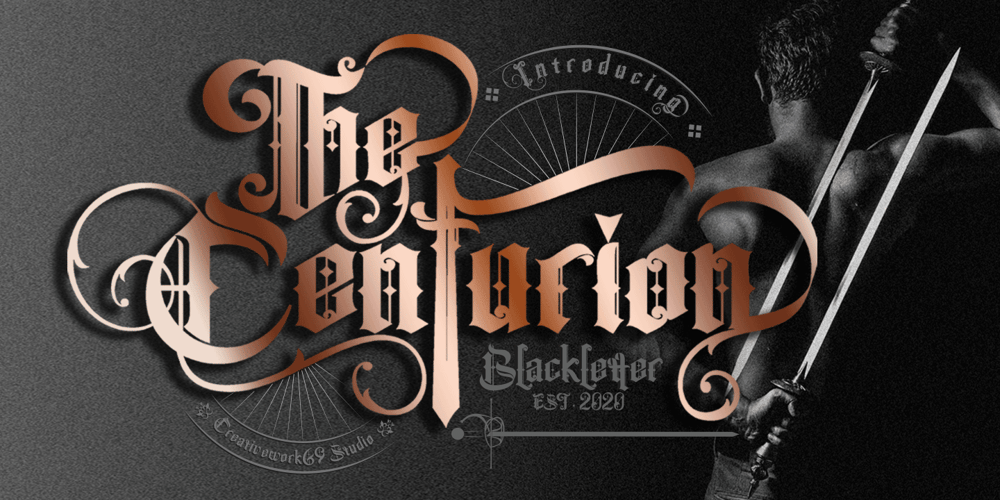
The Centurion Font Family was designed by Daddi Daryawan and published by Creativework Studio. The Centurion contains 1 styles and family package options. The Centurion is a gothic blackletter. It feels classic and artistic. Add this beautiful font to each of your creative ideas and notice how it makes them stand out!The Centurion is perfect for Band logos & branding, product designs, label, product, movie, book tittle, product packaging, t’shirt design